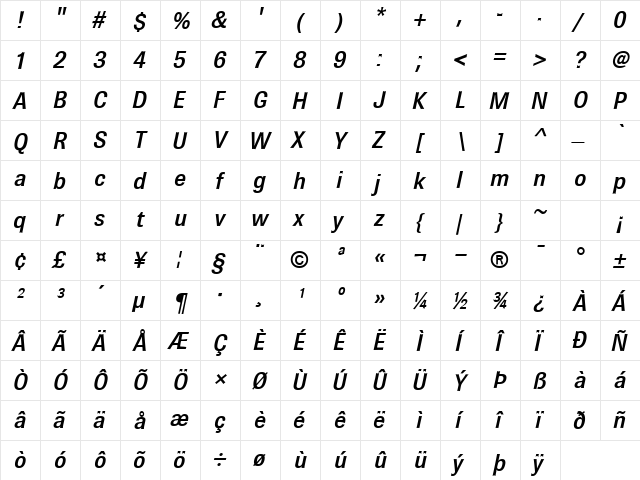
BrownMedium Italic
Design Context for BrownMedium Typeface
BrownMedium takes a measured approach to typography — its balanced proportions and neutral character make it a reliable workhorse for both digital and print work. The dynamic lean of this cut emphasises speed and emphasis in any layout.